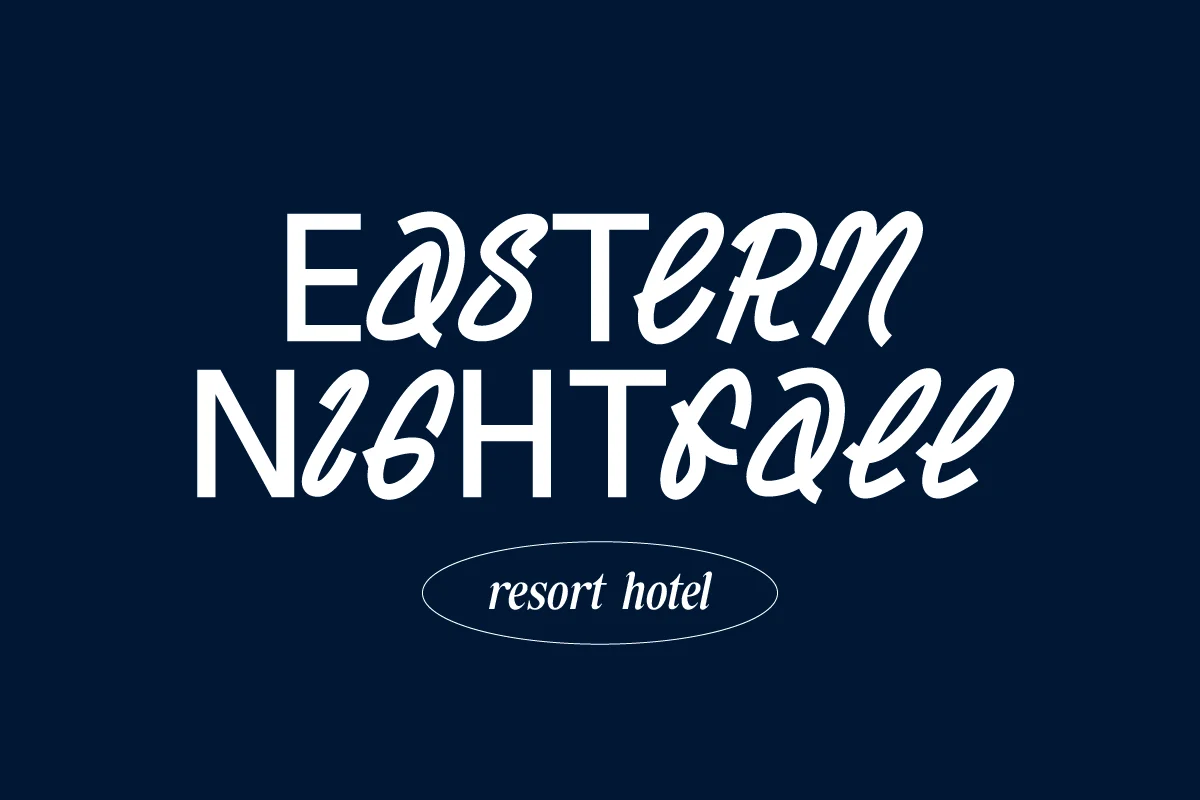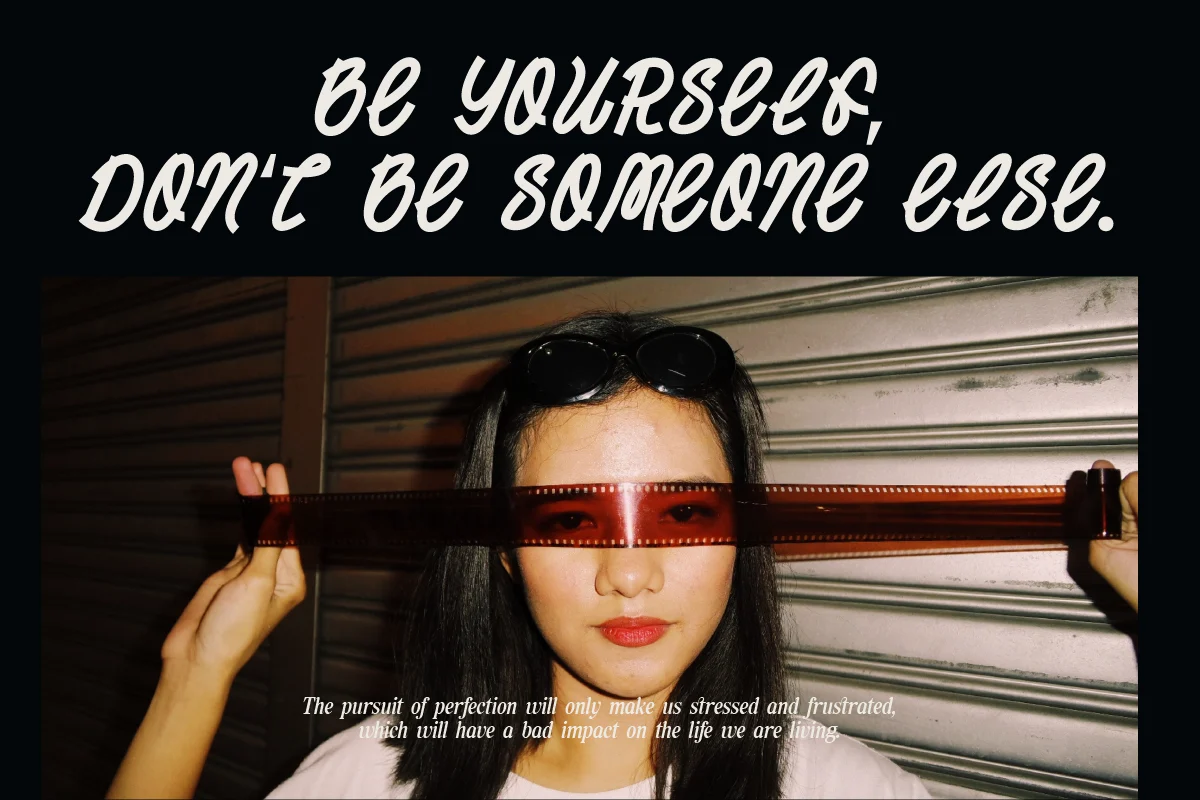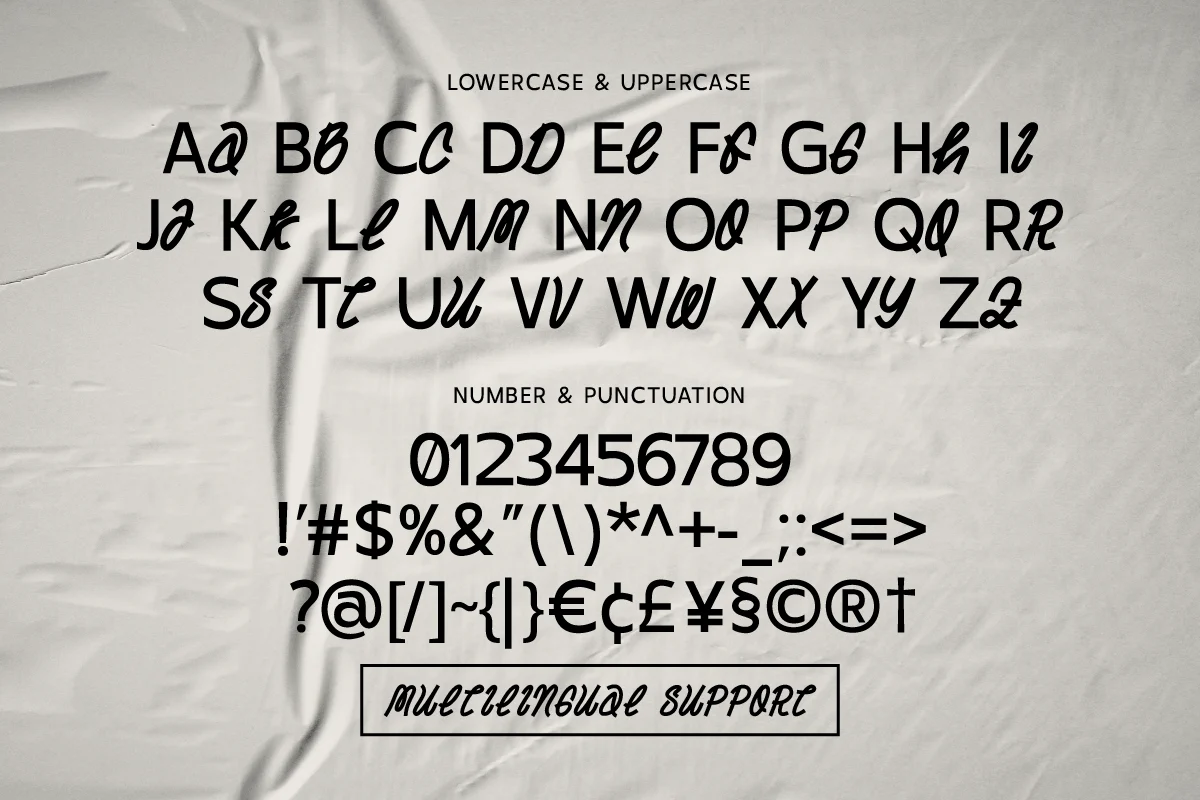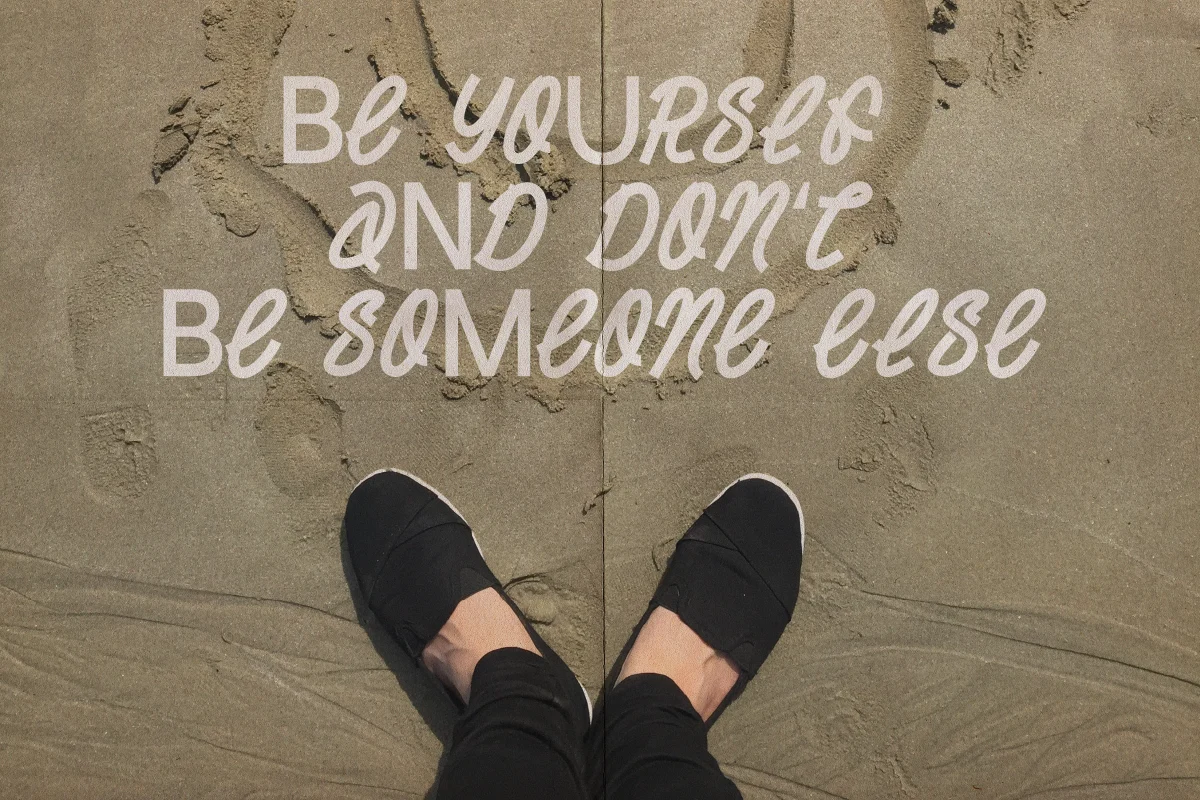
Melvens – Experiment Font Combination
Melvens is an experimental combination font. includes 2 fonts that have very different styles and appearances, but make this font look unique. This font is perfect for your design needs such as poster design, logo design, branding, social media design, books, magazines, etc.
- numbers & punctuation
- multilingual